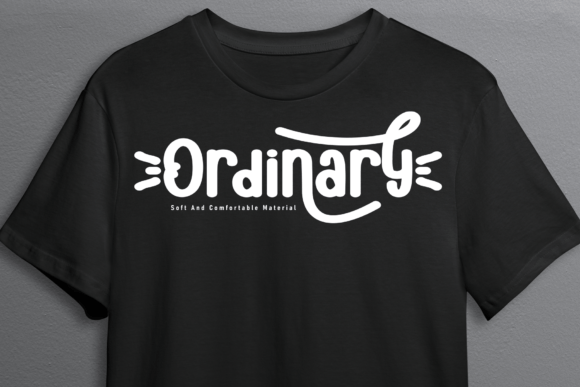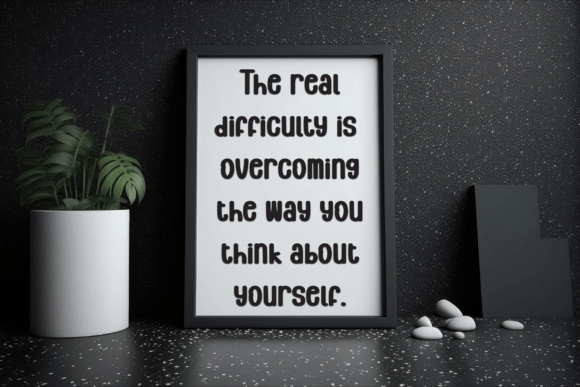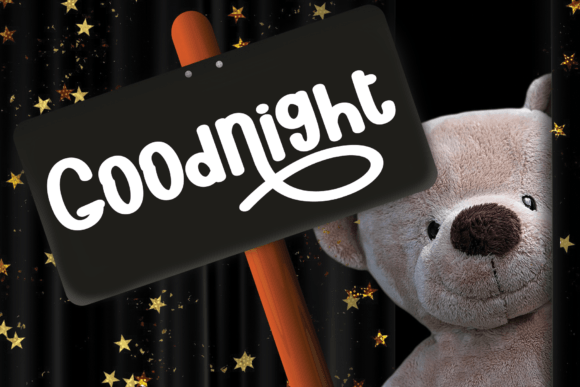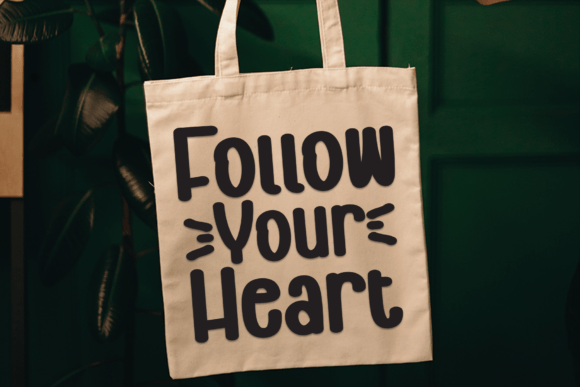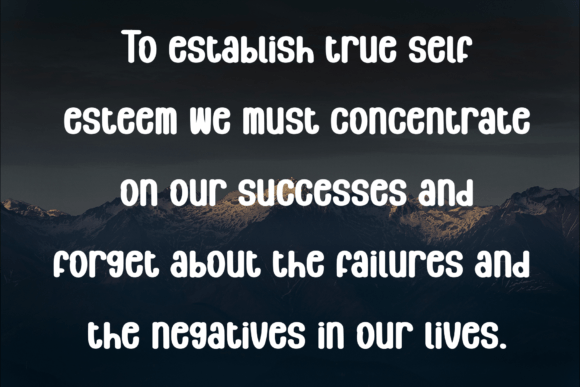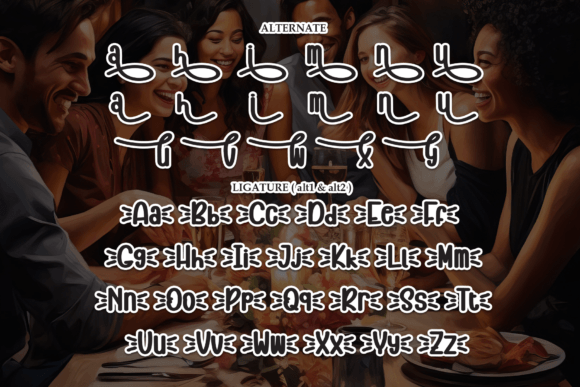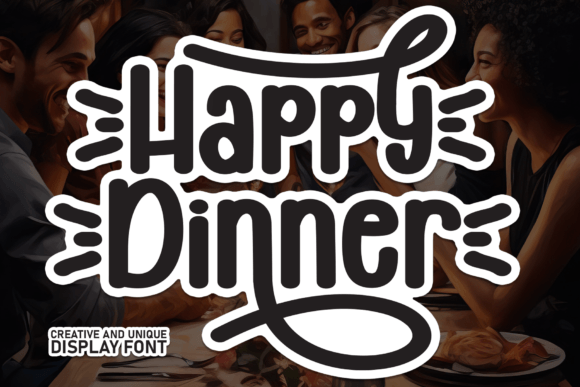
Introducing Happy Dinner Font: The Sweet and Versatile Display Font
Are you tired of using the same old fonts for your designs? Look no further than Happy Dinner Font, a sweet and display font that’s sure to add a touch of personality to any project. With its natural and unique style, Happy Dinner Font is incredibly fitting for a wide range of designs, from rustic and vintage to modern and playful. The only limit is your imagination!
What Makes Happy Dinner Font So Special?
Happy Dinner Font is a one-of-a-kind display font that’s perfect for designers and crafters looking to add a personal touch to their work. Its unique and natural style sets it apart from other fonts, making it incredibly versatile and adaptable to various design styles. Whether you’re creating a logo, branding materials, or social media graphics, Happy Dinner Font is sure to make your design stand out.
Key Features of Happy Dinner Font
- Unique and Natural Style: Happy Dinner Font boasts a distinctive and organic look that’s perfect for designs that require a personal touch.
- Highly Versatile: With its sweet and display font style, Happy Dinner Font can be used for a wide range of designs, from rustic and vintage to modern and playful.
- Easy to Read: Despite its unique style, Happy Dinner Font is incredibly legible, making it perfect for use in body text, headings, and titles.
- Perfect for Branding: Happy Dinner Font is ideal for creating custom logos, branding materials, and social media graphics that require a personal touch.
Use Cases for Happy Dinner Font
Happy Dinner Font is perfect for a variety of design projects, including:
- Logos and Branding: Create a custom logo or branding materials that showcase your unique personality and style.
- Social Media Graphics: Add a personal touch to your social media graphics, including Facebook posts, Instagram stories, and Twitter headers.
- Invitations and Party Decor: Use Happy Dinner Font to create custom invitations, party decor, and other celebration materials.
- Packaging and Product Design: Add a touch of personality to your product packaging and design with Happy Dinner Font.
Tips for Using Happy Dinner Font
To get the most out of Happy Dinner Font, here are a few tips to keep in mind:
- Experiment with Font Sizes: Happy Dinner Font looks great in a variety of font sizes, so don’t be afraid to experiment and find the perfect size for your design.
- Pair with Other Fonts: Happy Dinner Font pairs well with other fonts, so try combining it with a sans-serif font for added contrast.
- Use in Combination with Images: Happy Dinner Font looks great when used in combination with images, so try pairing it with a photo or illustration for added visual interest.
In conclusion, Happy Dinner Font is a sweet and versatile display font that’s perfect for designers and crafters looking to add a personal touch to their work. With its unique and natural style, Happy Dinner Font is incredibly fitting for a wide range of designs, from rustic and vintage to modern and playful. So why wait? Download Happy Dinner Font today and let your imagination run wild!